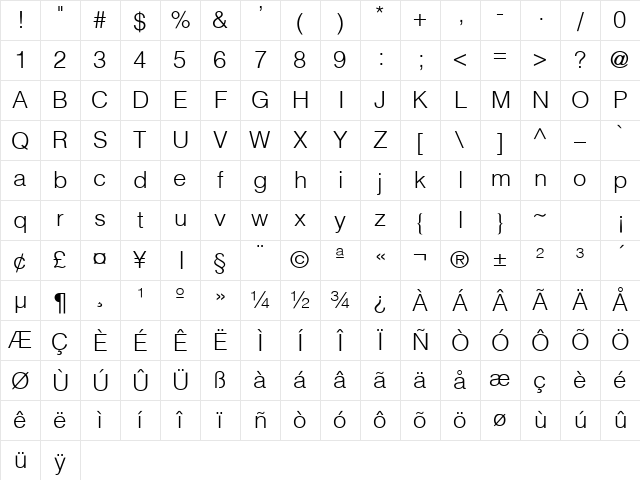
Switzerland Light Plain Free Font
Switzerland Light Plain
Switzerland Light Family
Design Context for Switzerland Light
Switzerland Light is a composed and adaptable typeface that performs quietly and consistently across a wide range of design contexts. Its slender proportions lend an understated elegance to any composition.